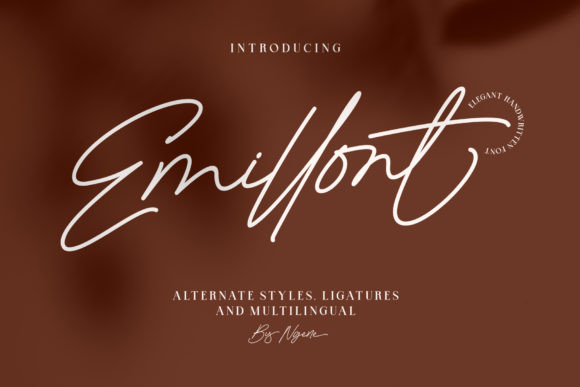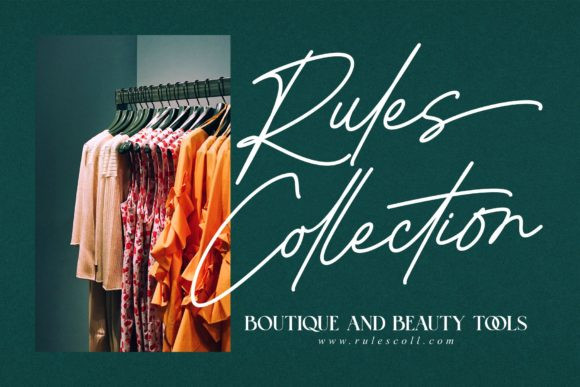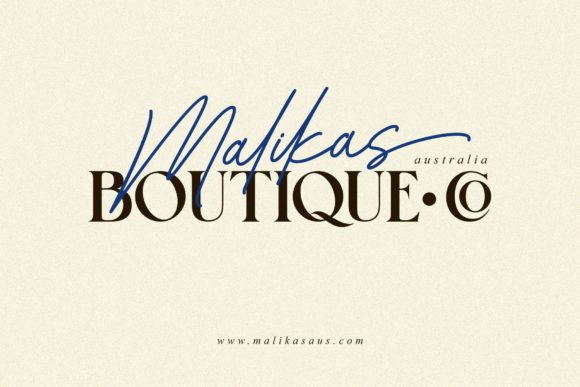
Emillont Font
Emillont is a classy and beautiful handwritten font. It has beautiful and well balanced characters and as a result, it matches a wide pool of designs. Add it to your most creative ideas and notice how it makes them come alive!https://www.creativefabrica.com/product/emillont/